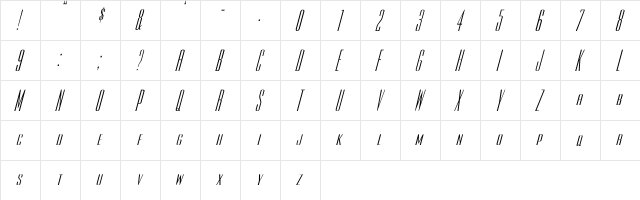
Rothman Italic Italic
Design Context for Rothman Italic Typeface
Rothman Italic offers clean, dependable letterforms without strong stylistic allegiance, making it a practical choice for designers who need flexibility. The dynamic lean of this cut emphasises speed and emphasis in any layout.